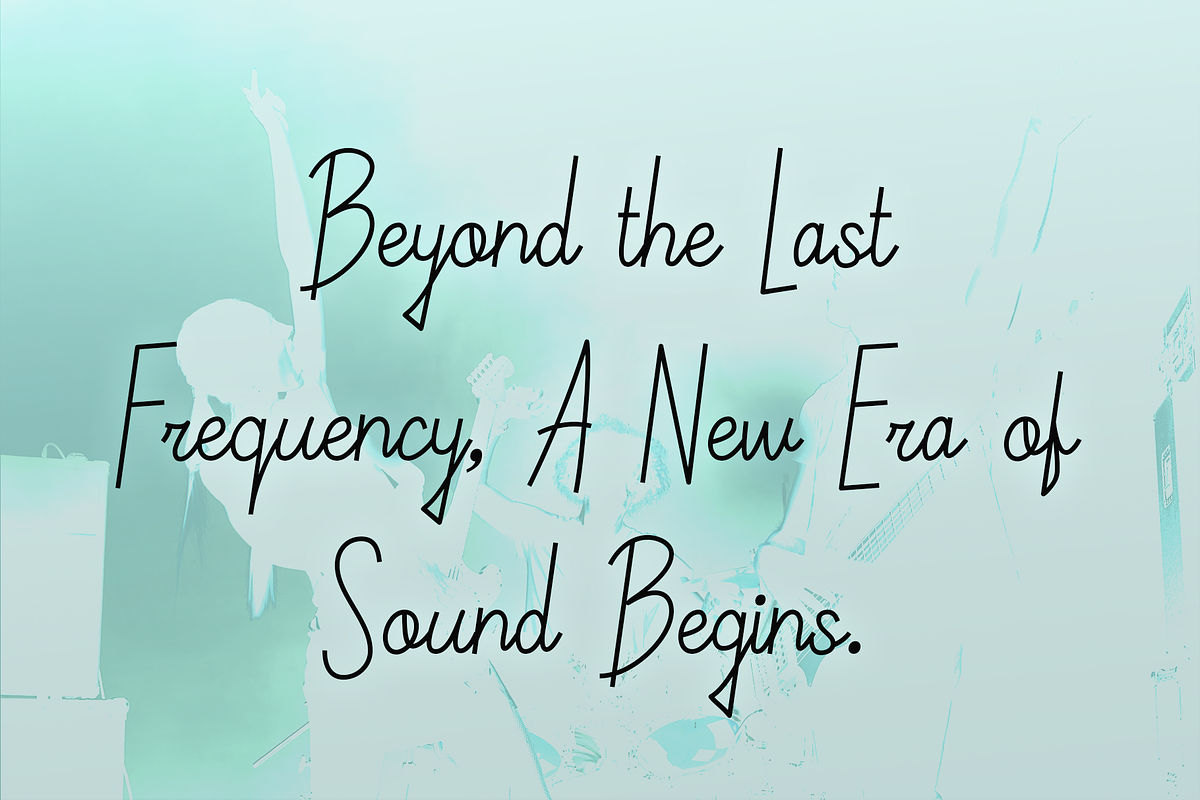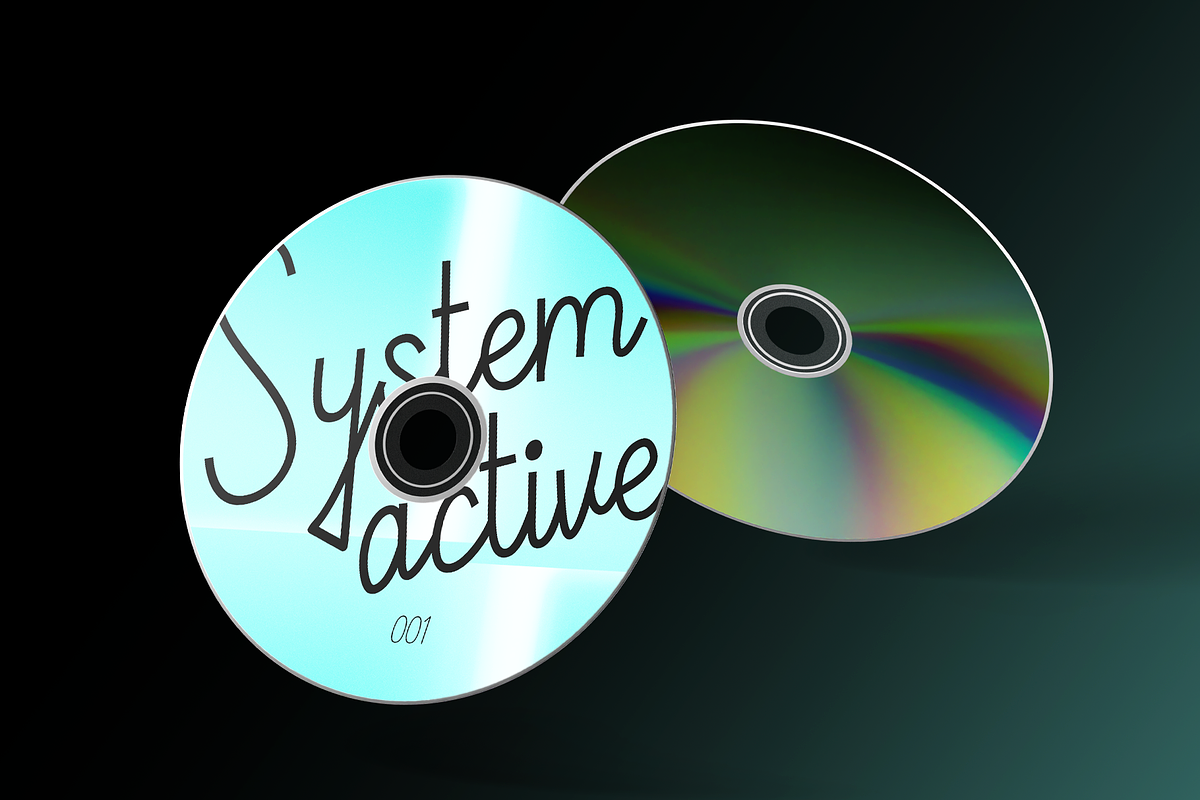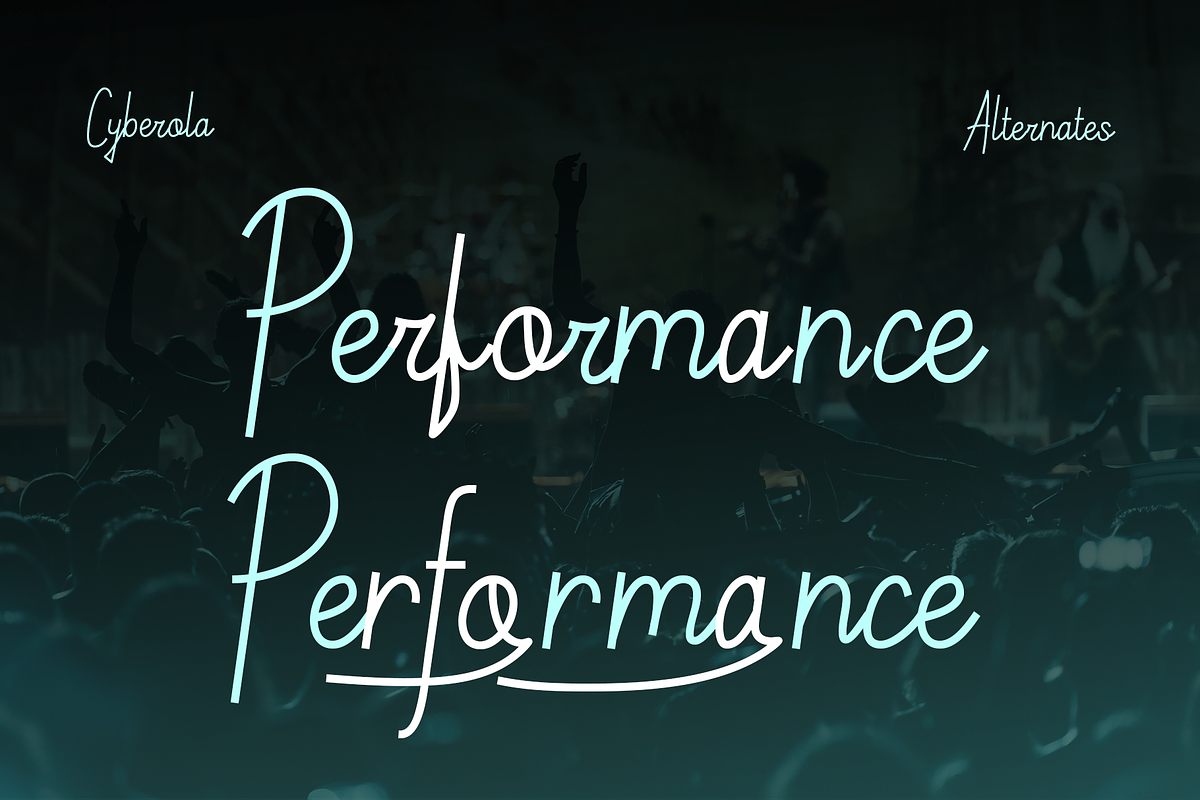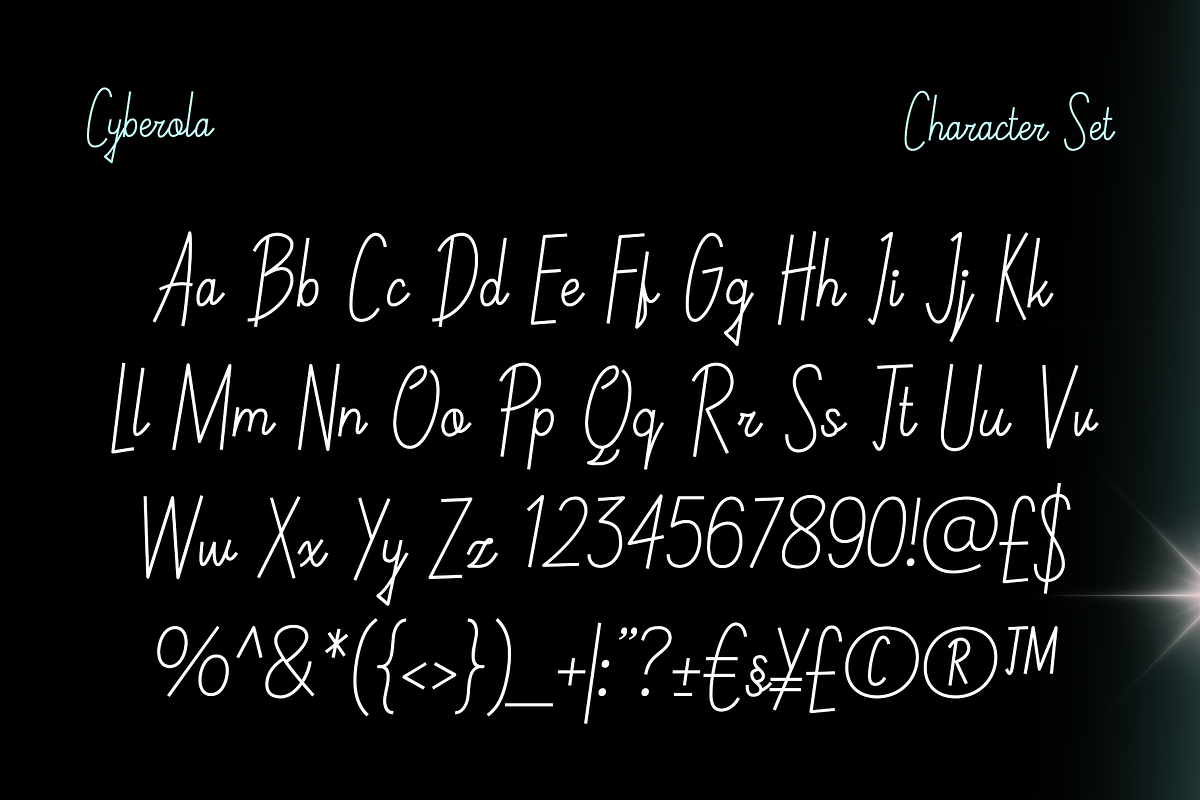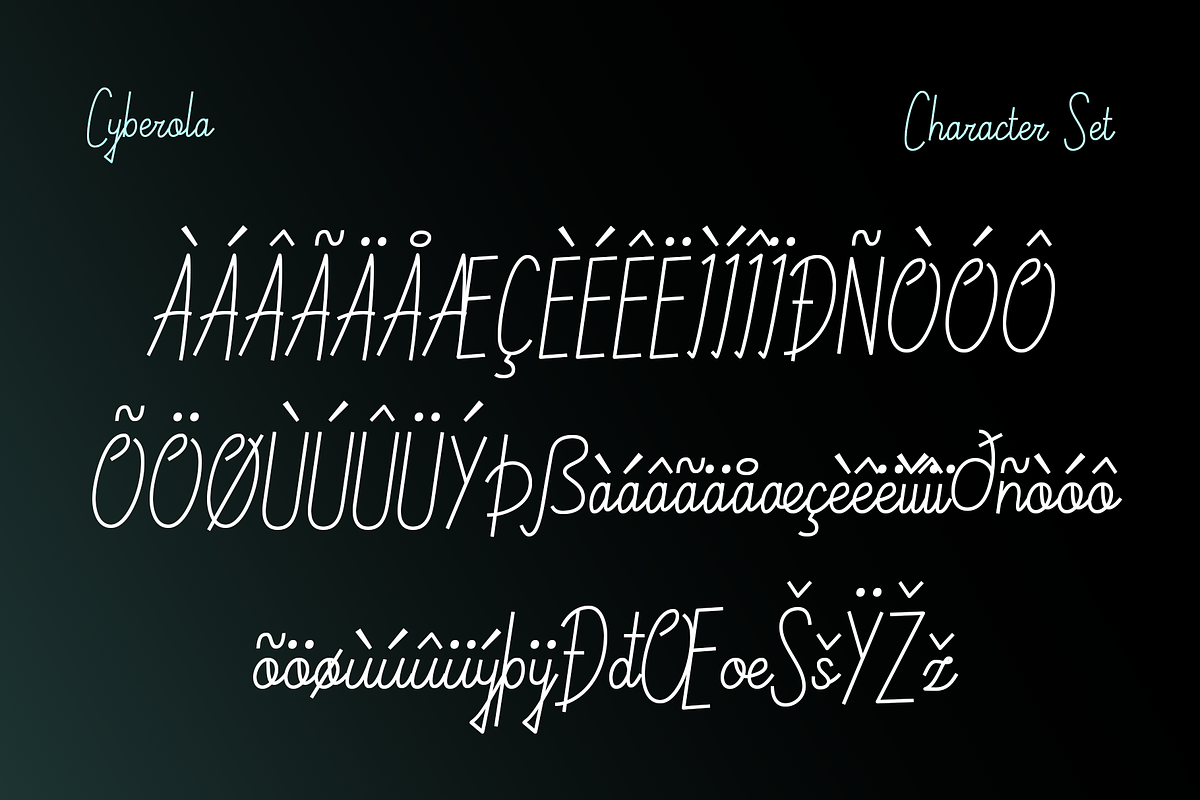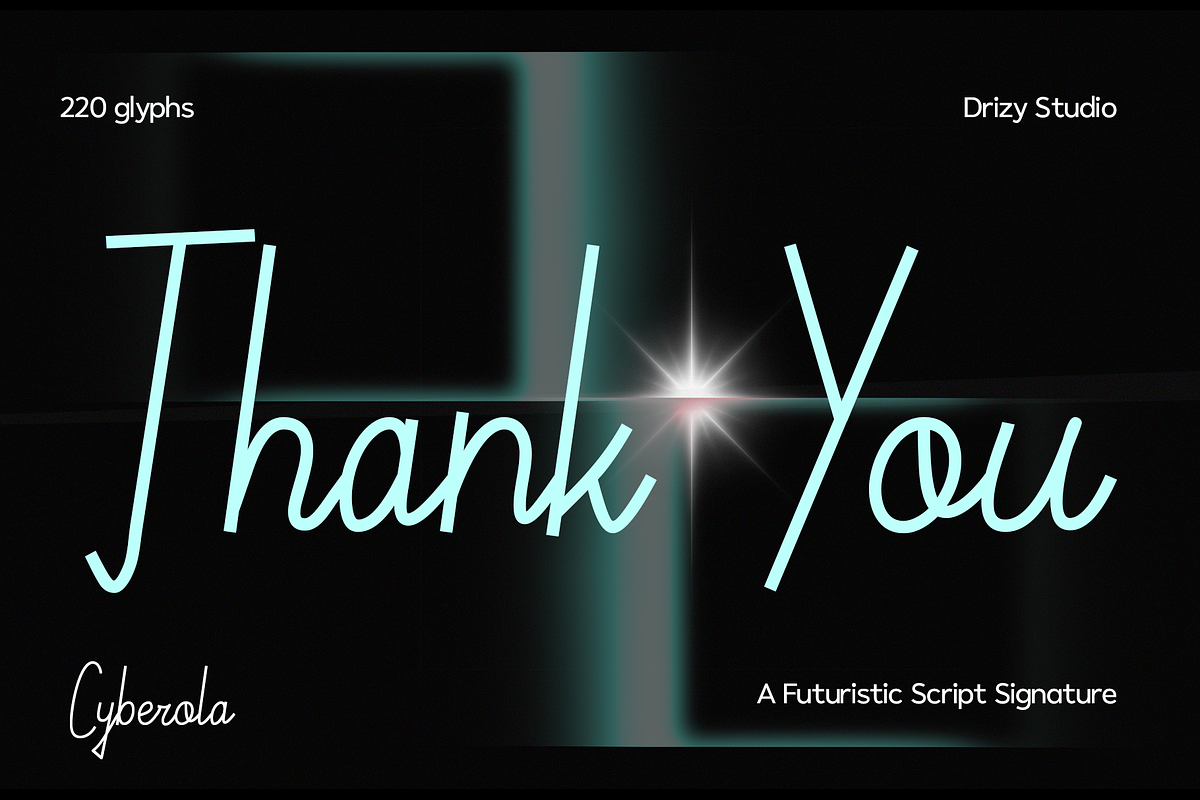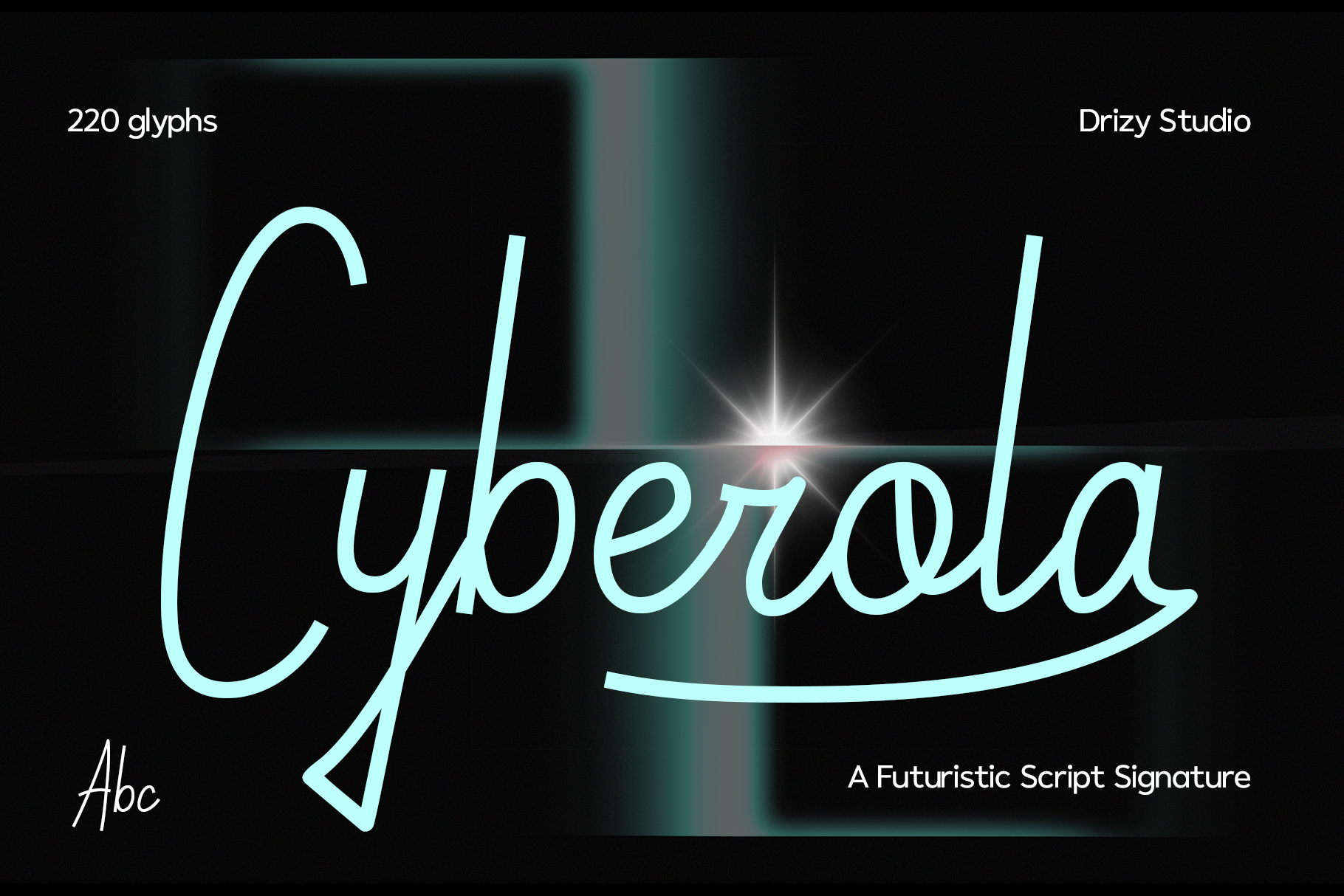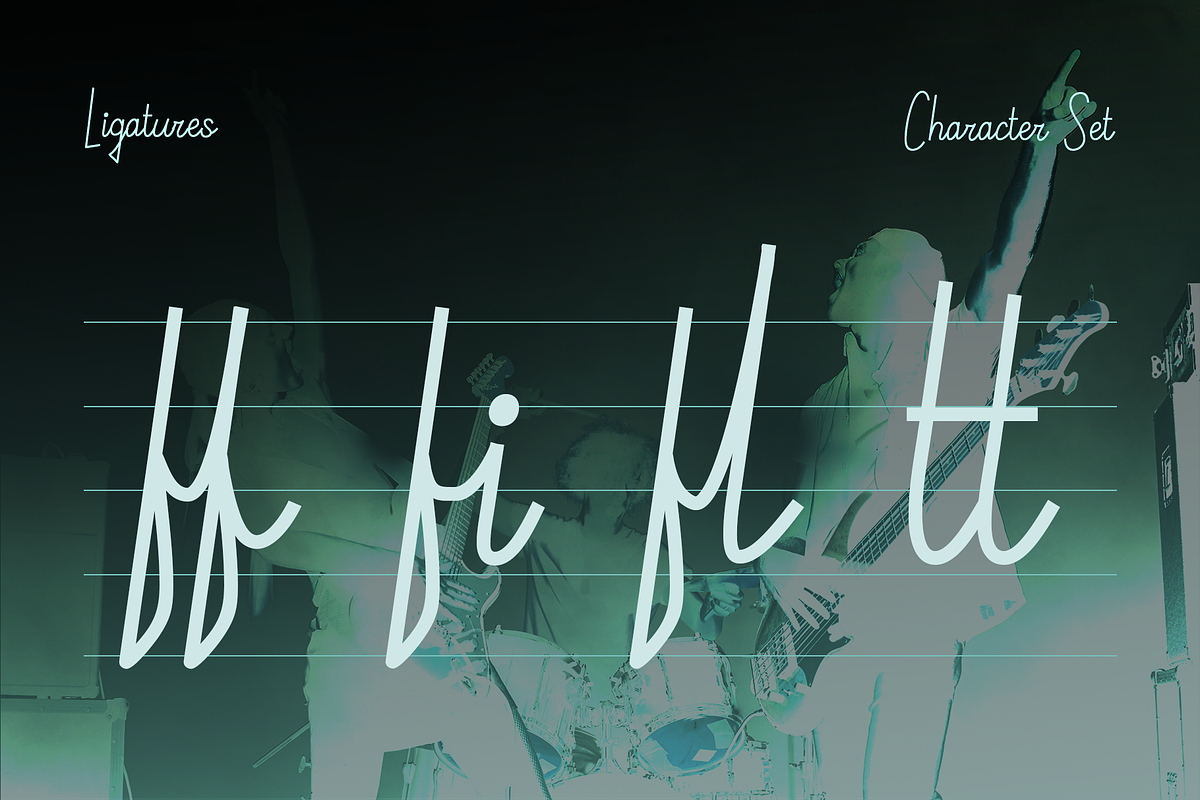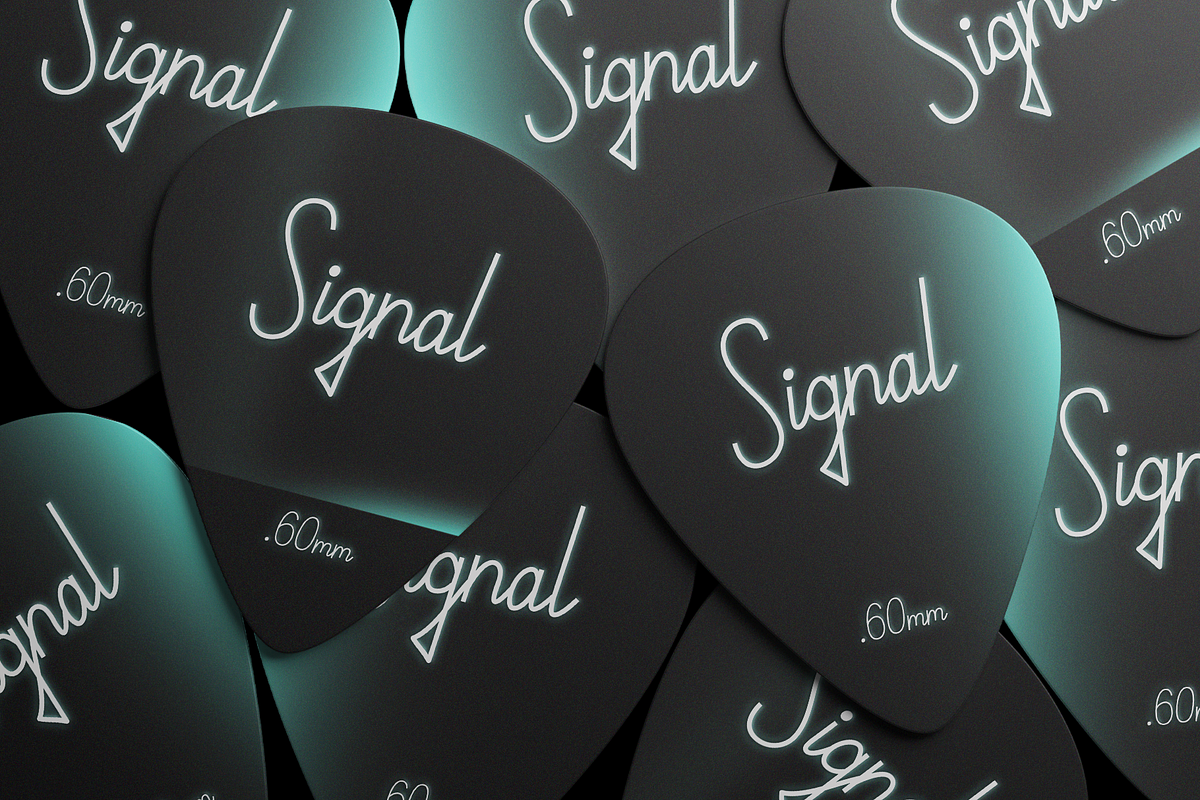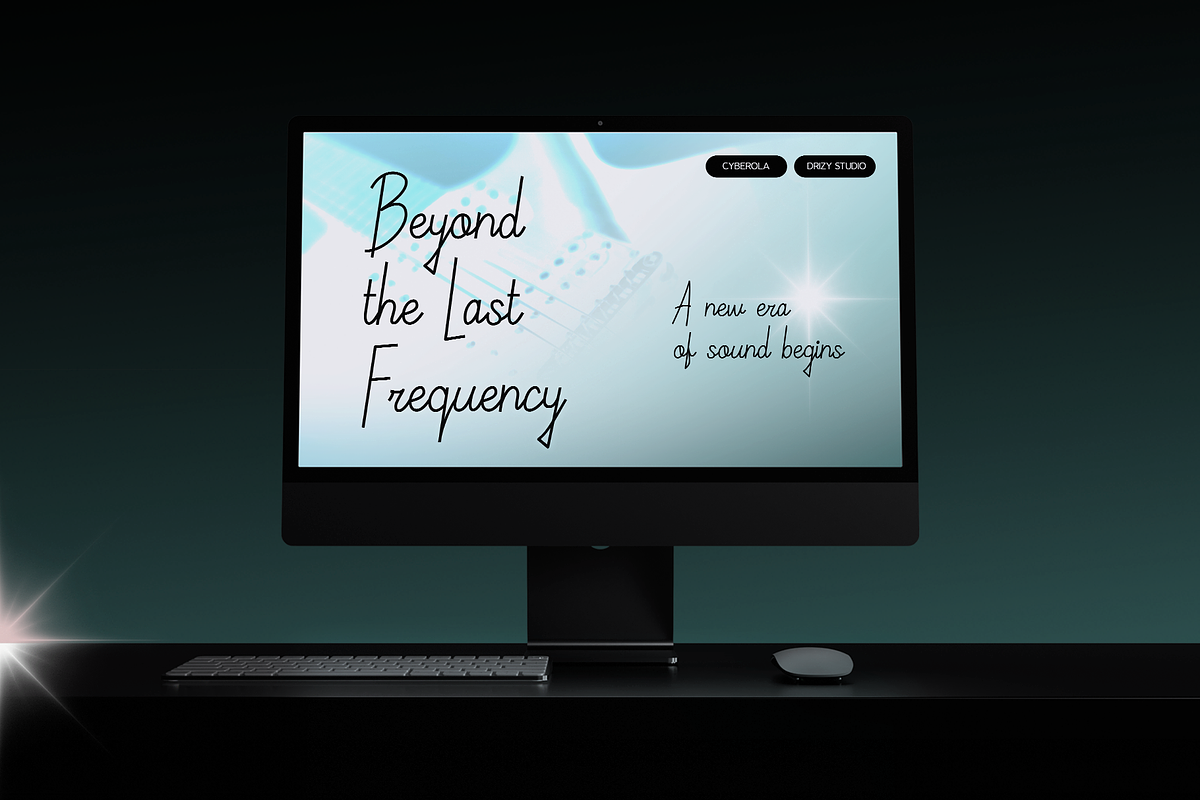
Cyberola – Futuristic Script Font
Cyberola – Futuristic Script Signature Font
Cyberola is a sleek display script font that blends the elegance of a handwritten signature with a bold futuristic aesthetic. Featuring smooth cursive strokes and clean monoline construction, Cyberola creates a refined yet innovative look that stands out across digital and print designs.
Its flowing letterforms are designed for modern branding, luxury logos, fashion editorials, technology projects, social media, packaging, and premium visual identities. Whether you’re crafting a minimalist logo or a striking headline, Cyberola delivers a sophisticated signature style with a futuristic edge.
Cyberola – Futuristic Script Signature Font features:
Punctuation & Numbers
Alternate